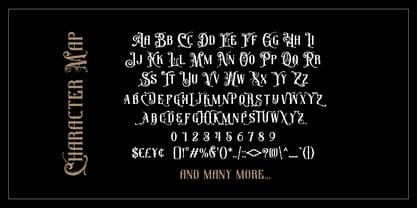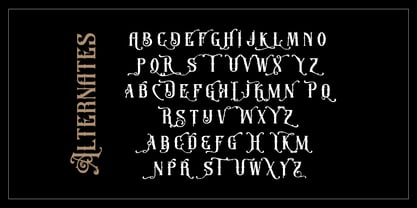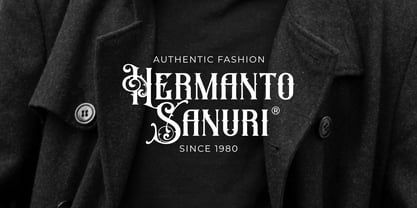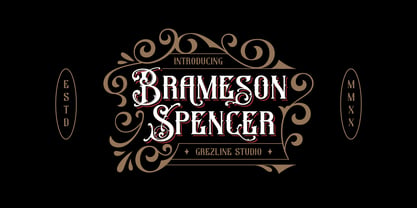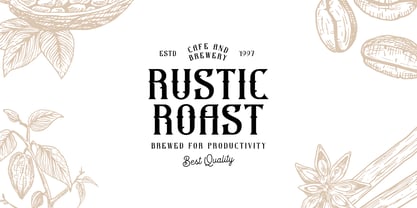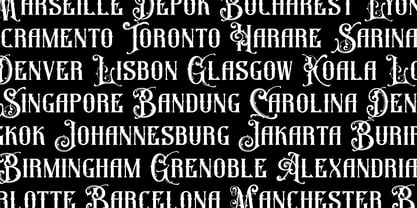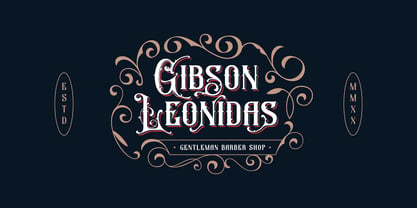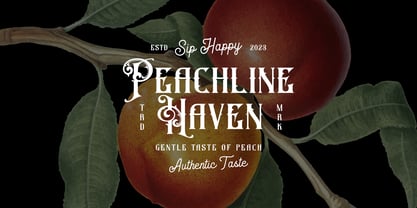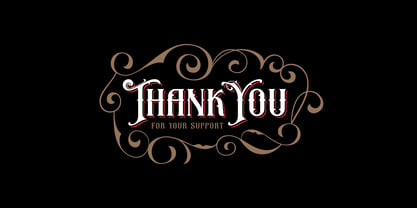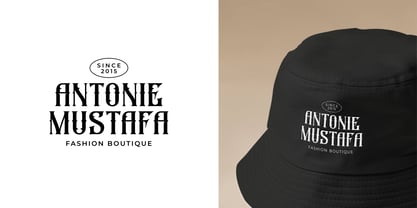
Brameson Spencer
by Grezline Studio
The Brameson Spencer Font Family was designed by Akhmad Reza Fauzi and published by Grezline Studio. Brameson Spencer contains 2 styles and family package options. More about this family
Introducing Brameson Spencer, a display typeface crafted with bold classic character and refined ornamental details. Designed to deliver an elegant, confident, and premium visual presence in every composition. This font is ideal for high-end branding, posters, product packaging, editorial headlines, and creative projects that demand a strong and distinctive identity. The combination of decorative serif forms and a vintage-modern aesthetic makes Brameson Spencer a powerful choice for designs that aim to stand out with timeless sophistication.   Feature : - Alternate and Ligature - Multilingual Language - Works on PC & Mac - Simple installations - Accessible in the Adobe Illustrator, Adobe Photoshop, Adobe InDesign, even works on Microsoft Word. Thank you! Grezline Studio - Akhmad Reza Fauzi
Designers: Akhmad Reza Fauzi
Foundry: Grezline Studio